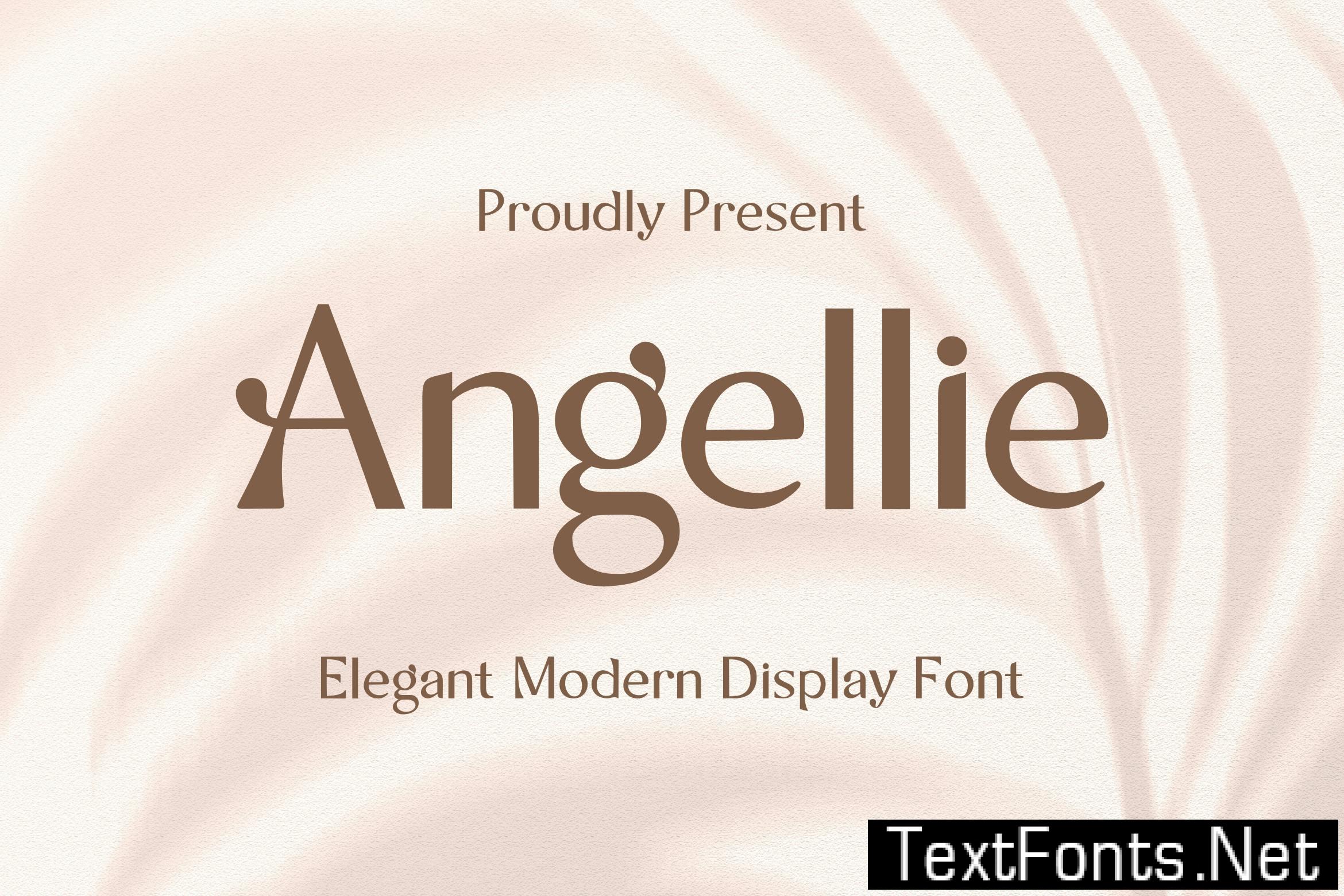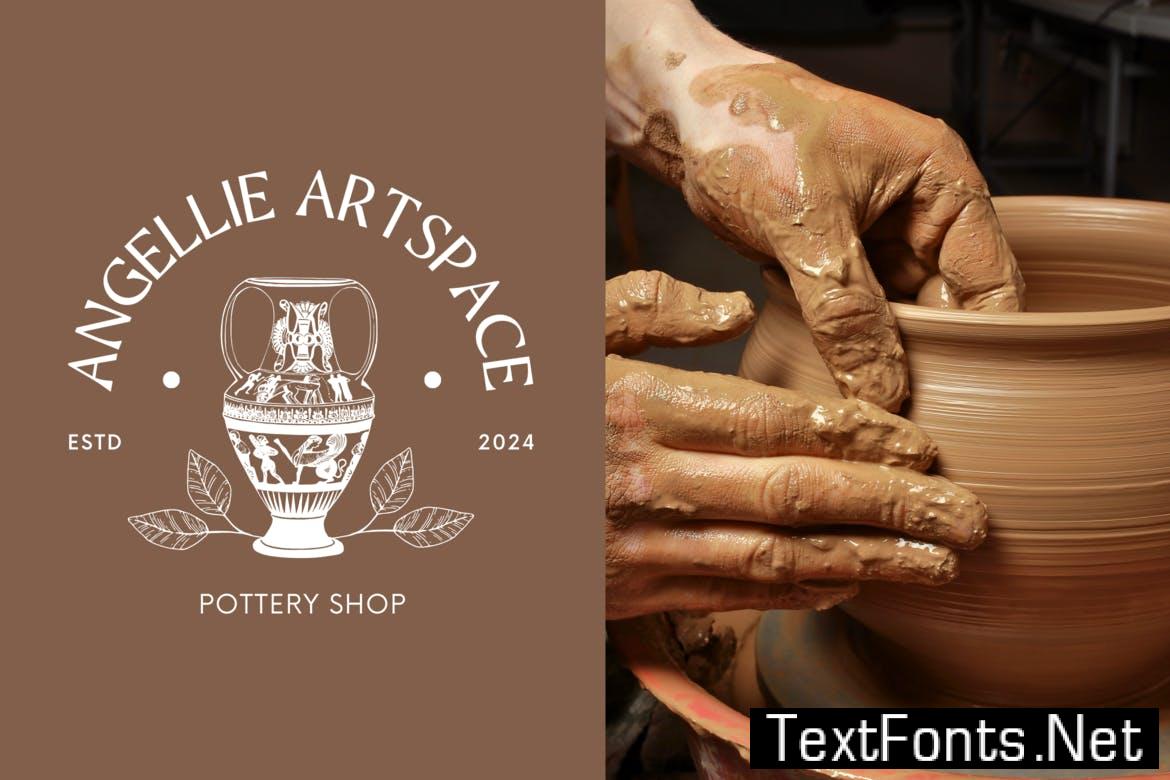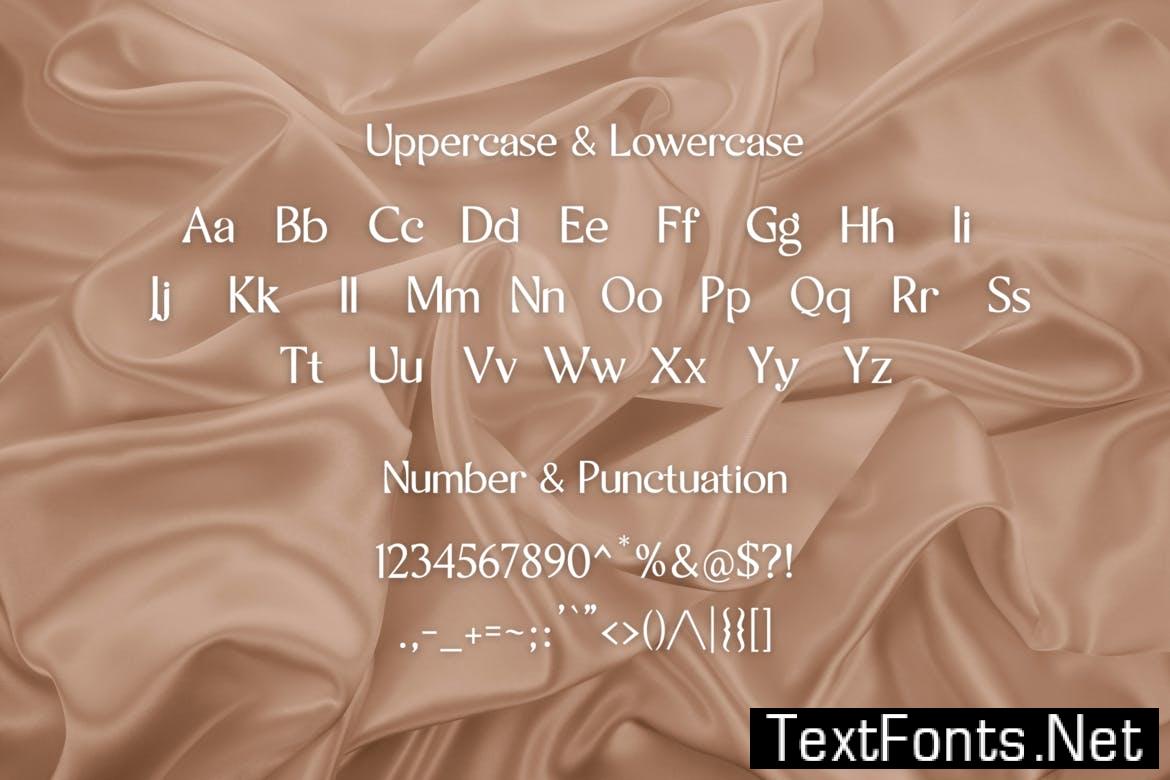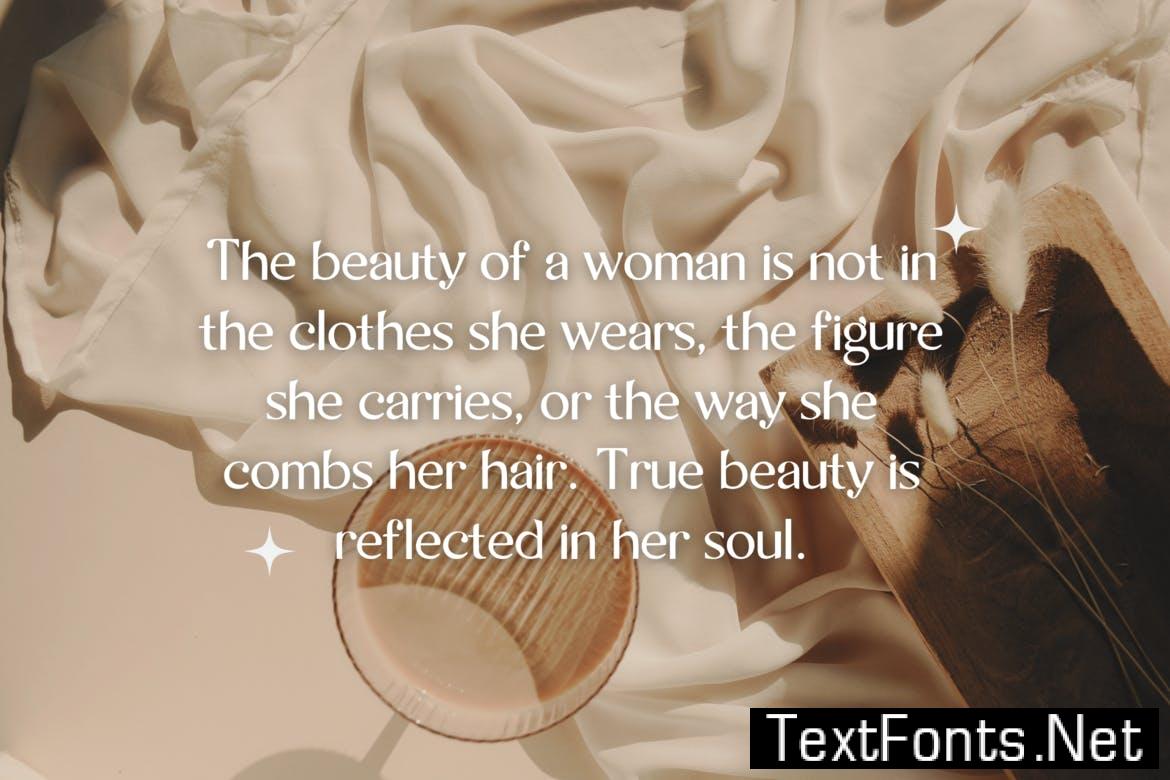
**Description**
Angellie is a minimalist, contemporary typeface with a hint of style and elegance. Angellie’s style is straightforward and uncomplicated, making it suitable for a wide range of projects, including print, digital, and editorial design.
* Uppercase Characters
* Lowercase Characters
* Numeric & Symbol